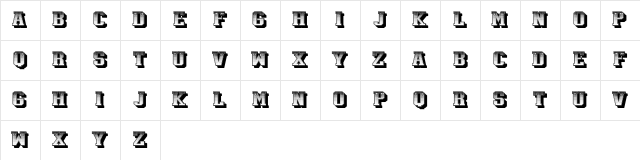
Falsificata Regular
Design Context for Falsificata
Falsificata is a composed and adaptable typeface that performs quietly and consistently across a wide range of design contexts.
Pro Tip: Use Falsificata in both headline and body roles to test its range before committing to a single application.